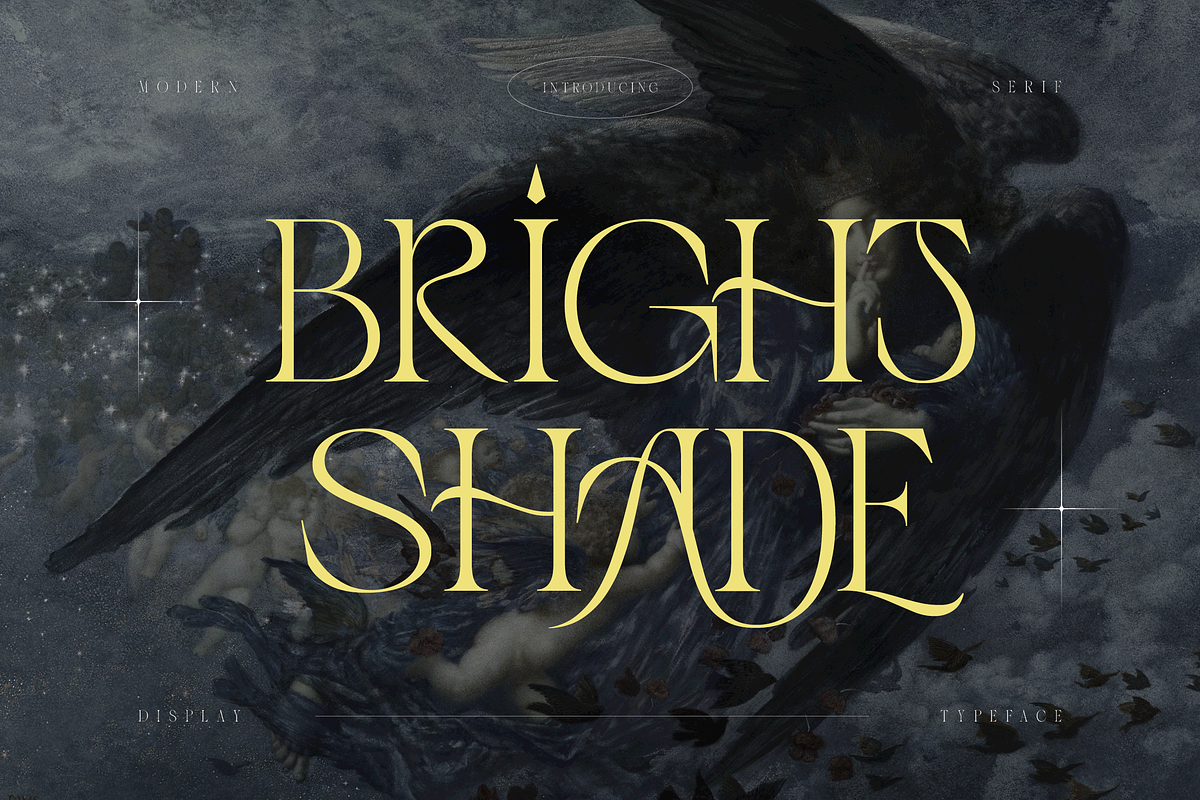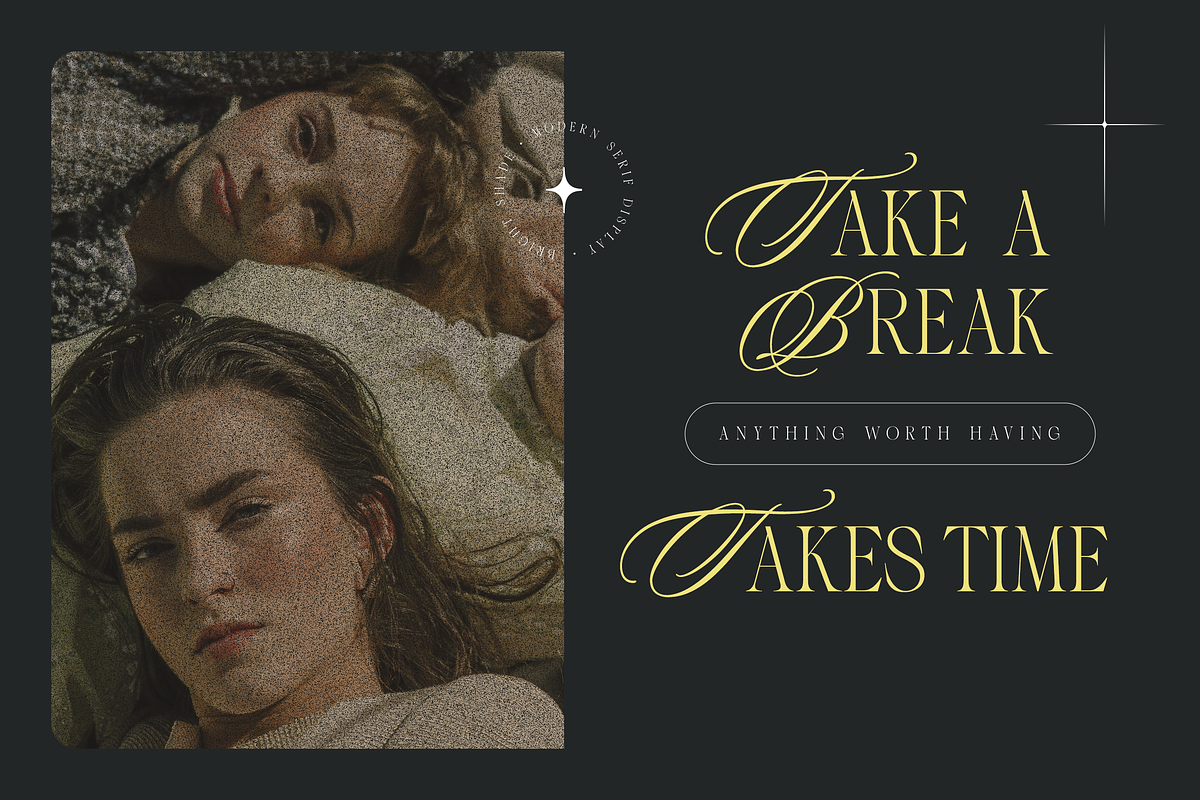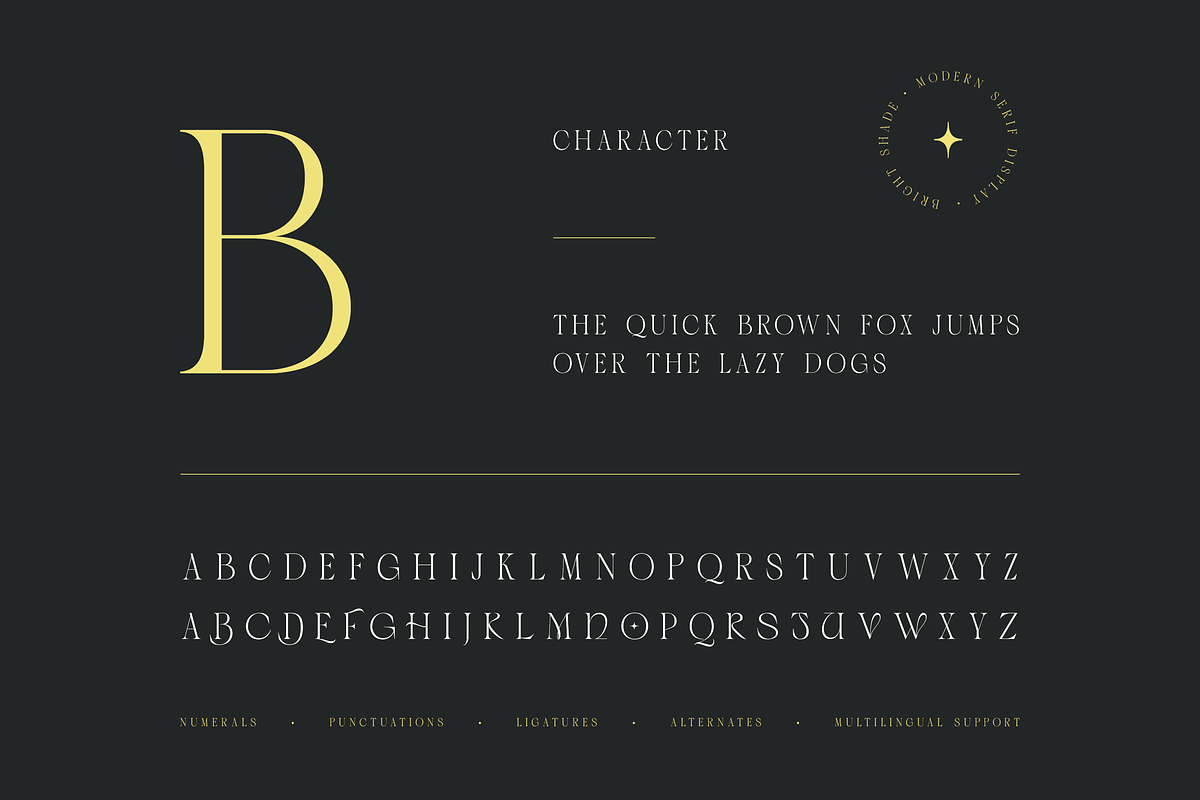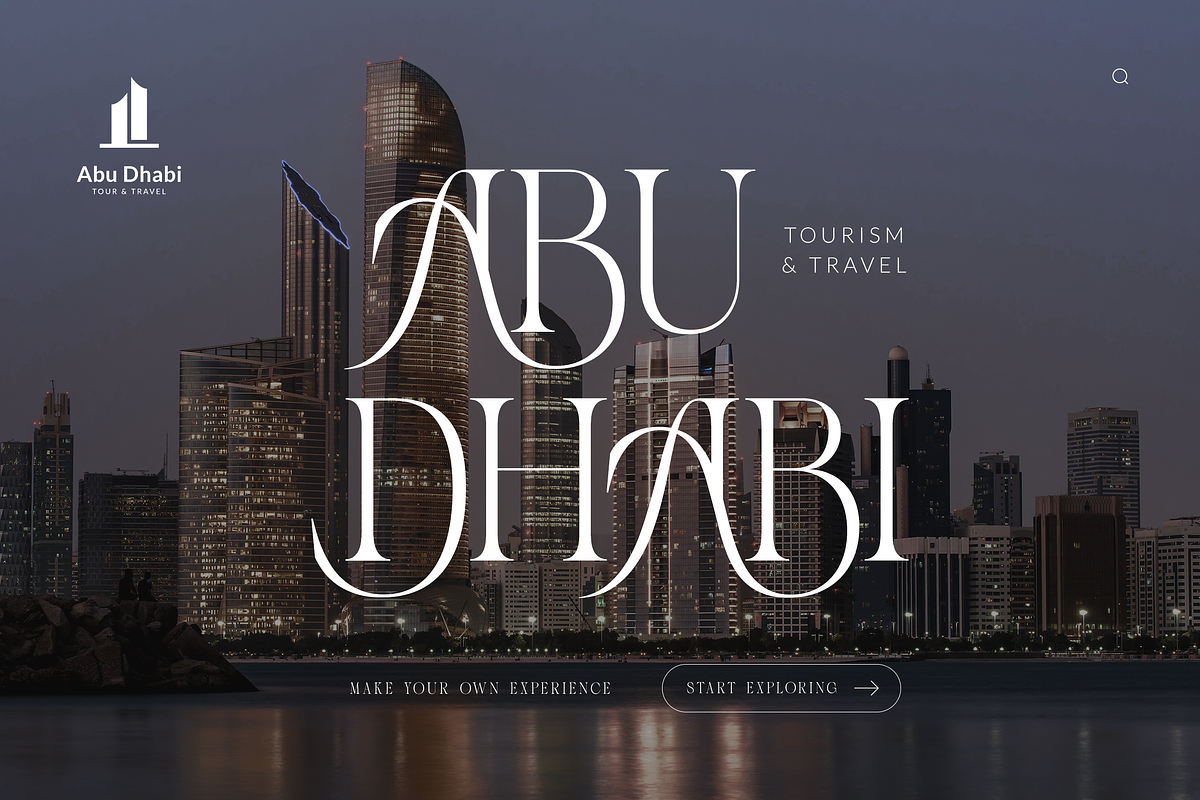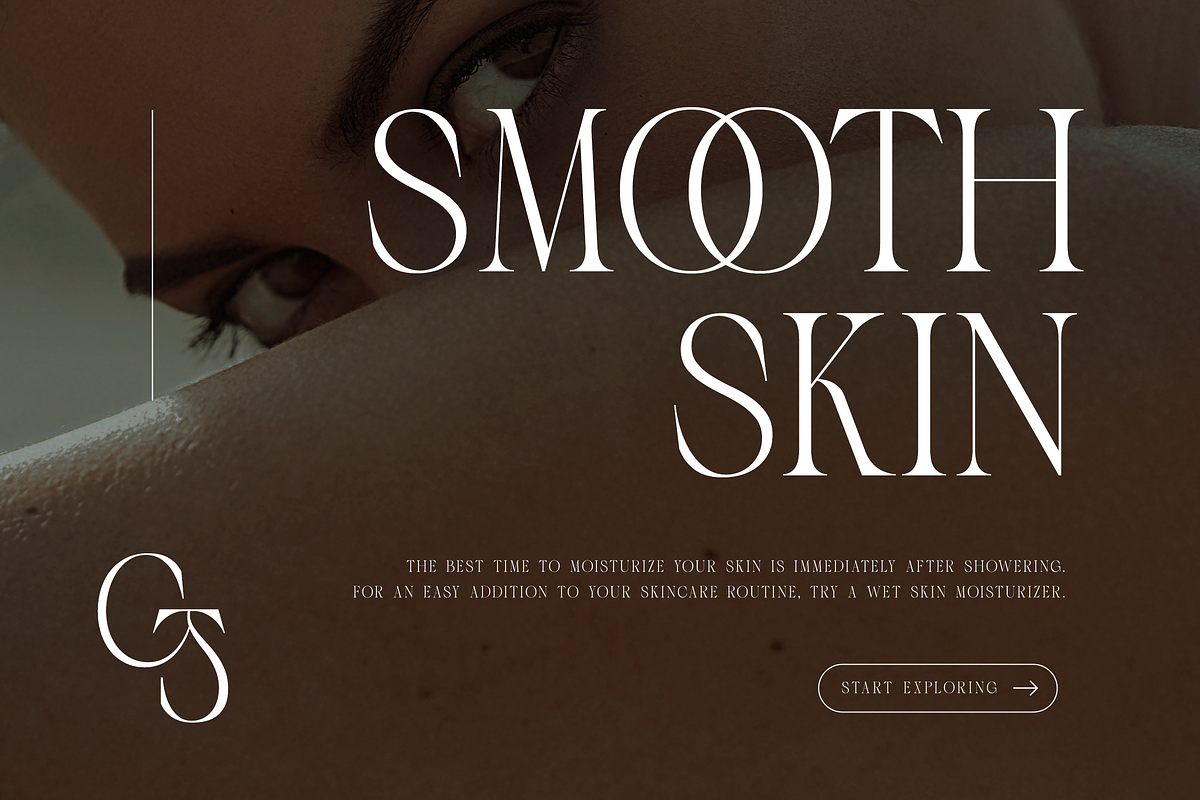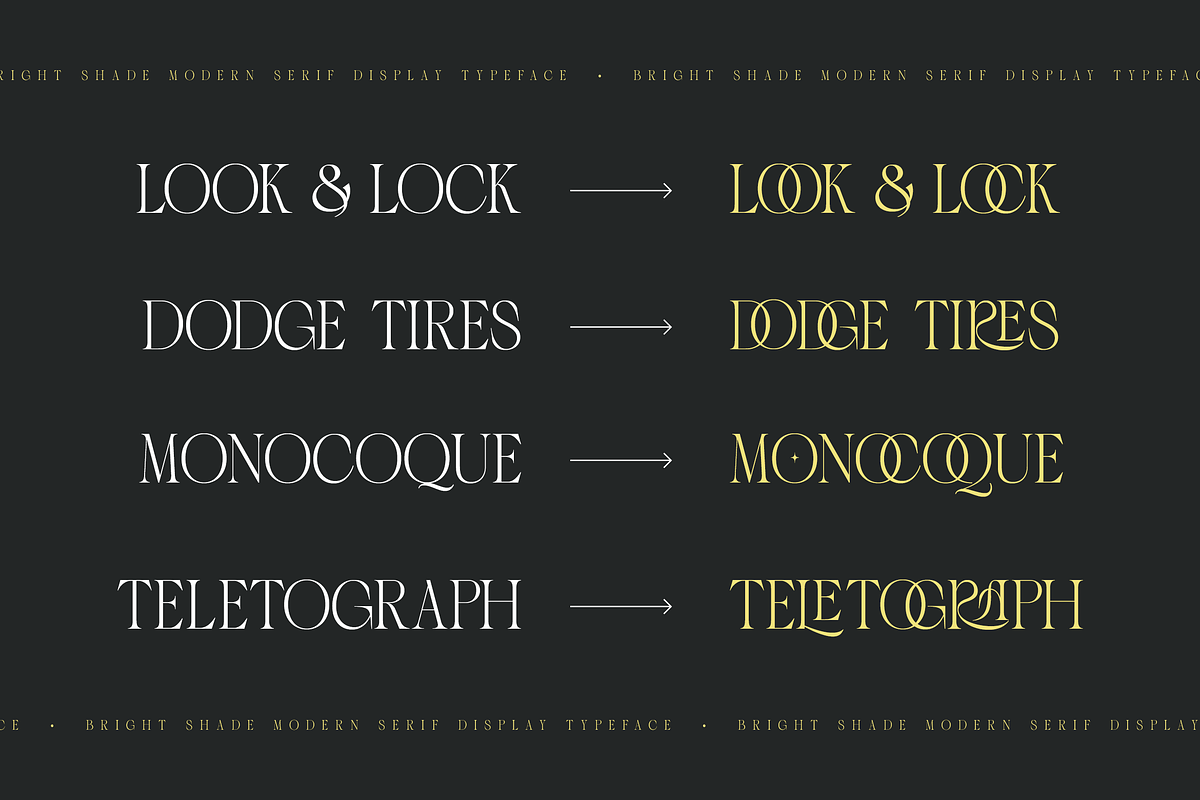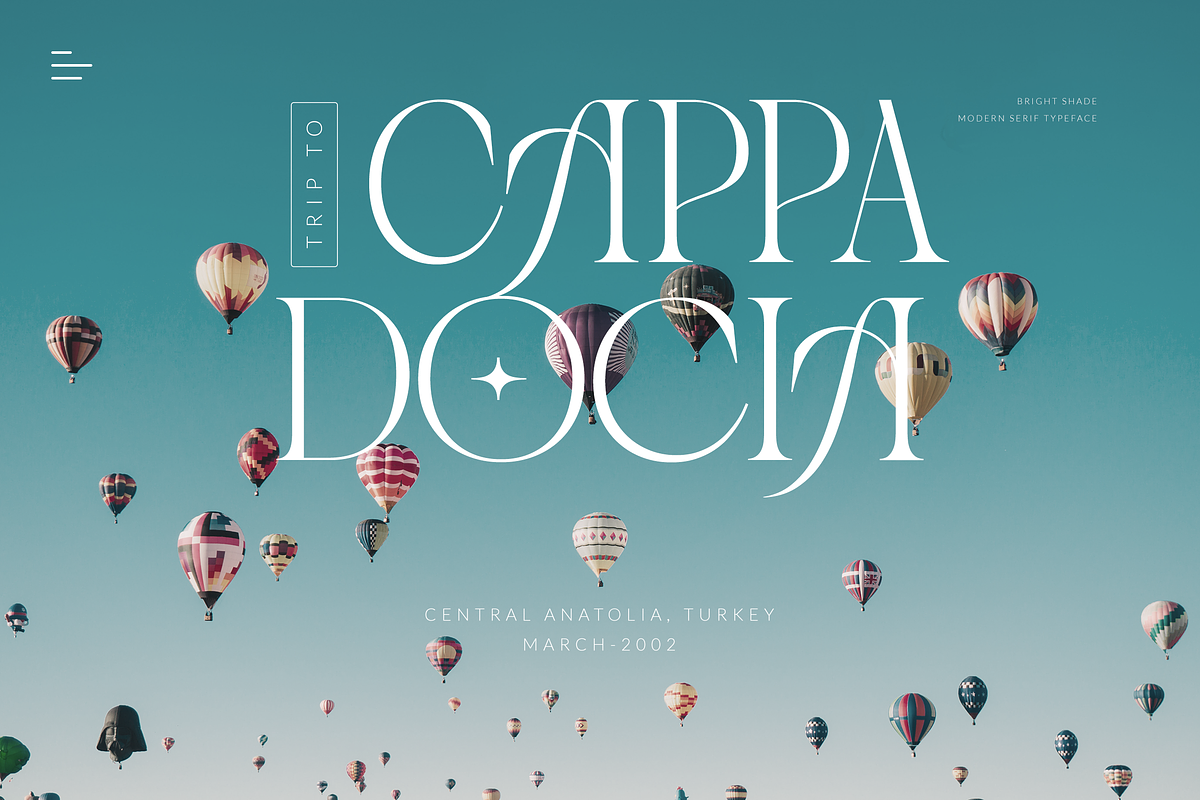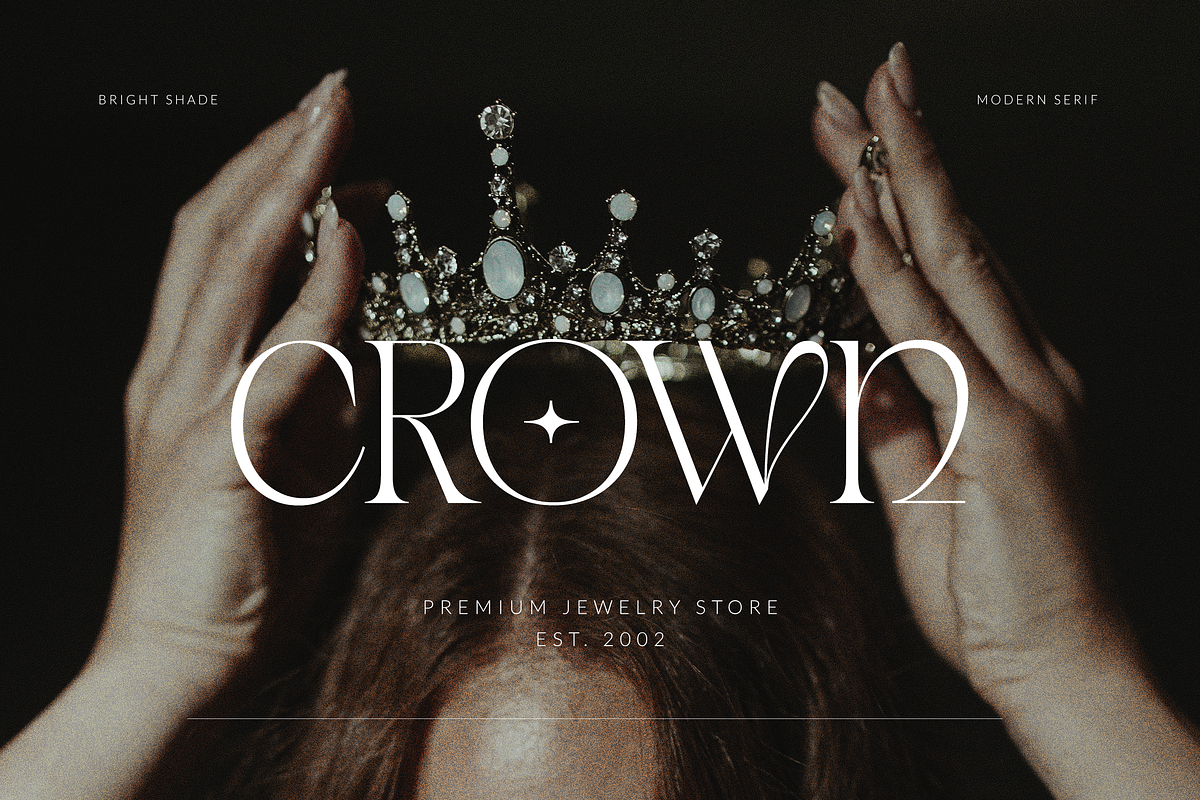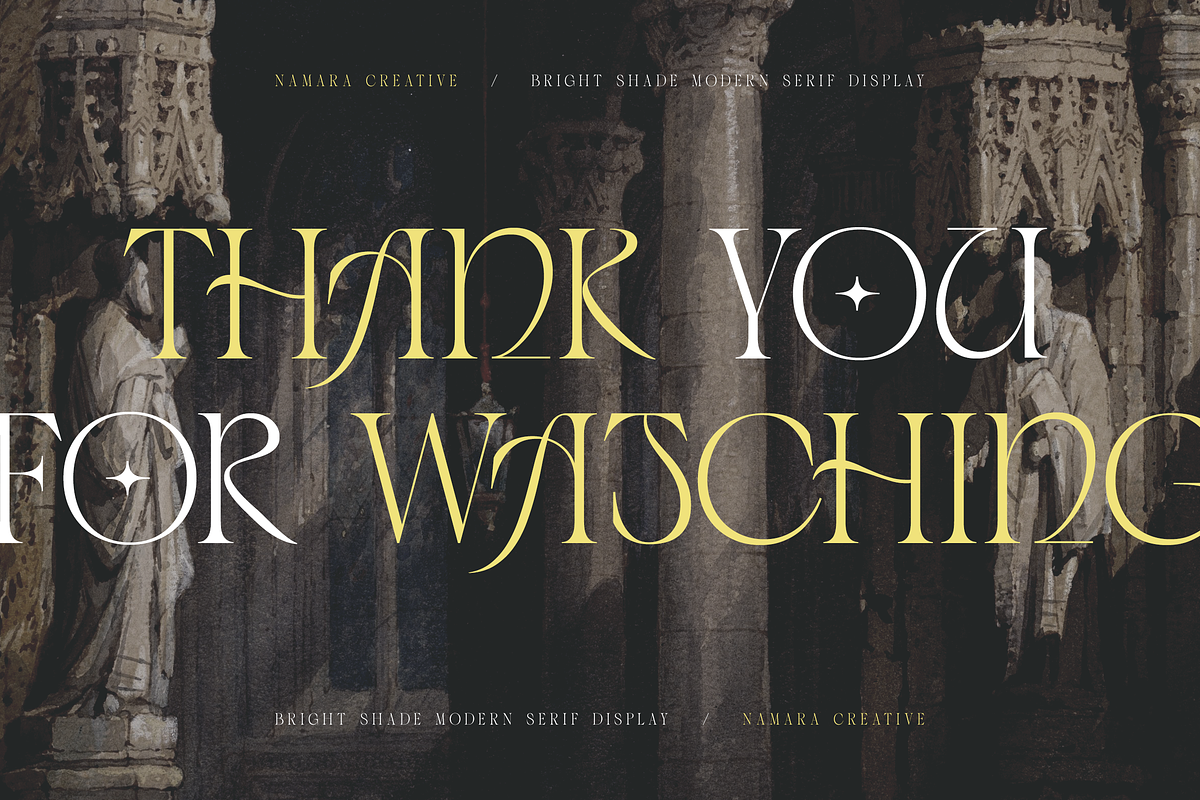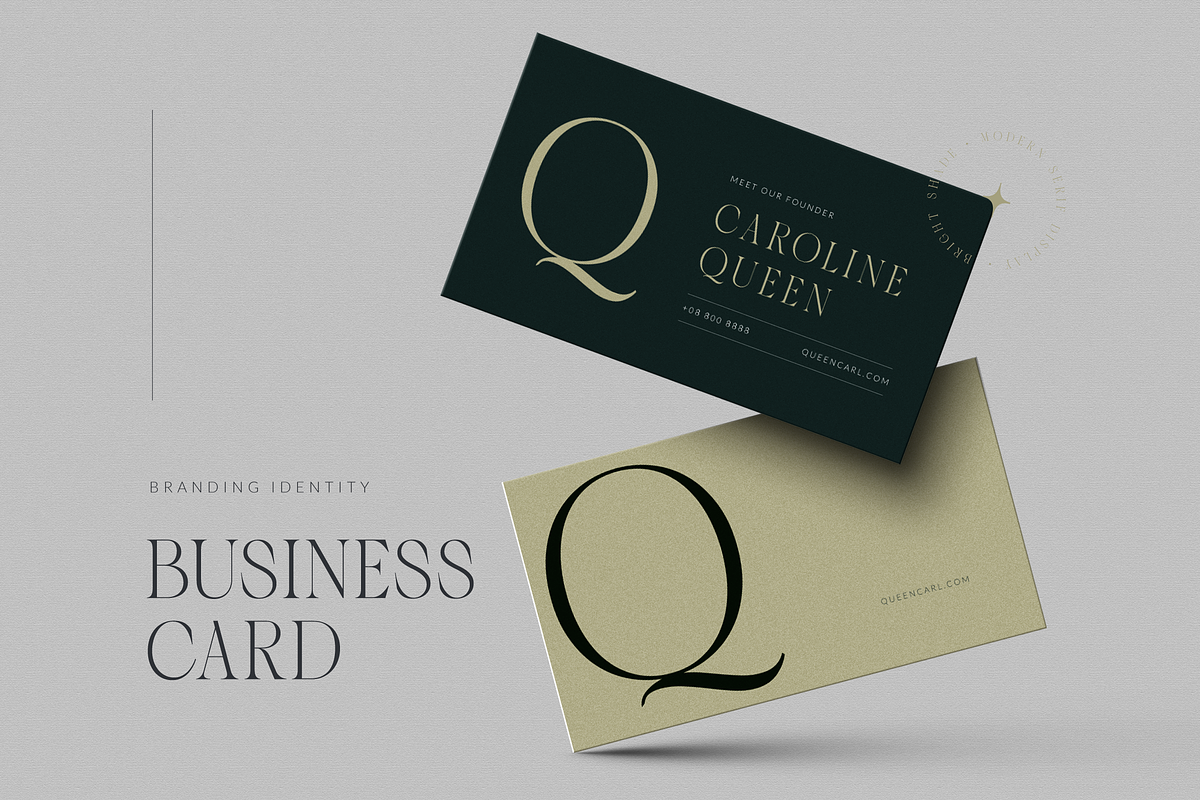
Bright Shade - Modern Serif Display
Bright Shade display font inspired by modern and contemporary serif combined in one. Perfect for any of your design needs, Such as Logo, Poster, Business card, Social Media design and more.
Modern contemporary serif display font, Combined unique and elegant styles serif of the '80s. Bright shade come to display your message more attractive and meaningful.
- Alternates, Ligatures & Multilingual Support
- Modern Contemporary Theme Font